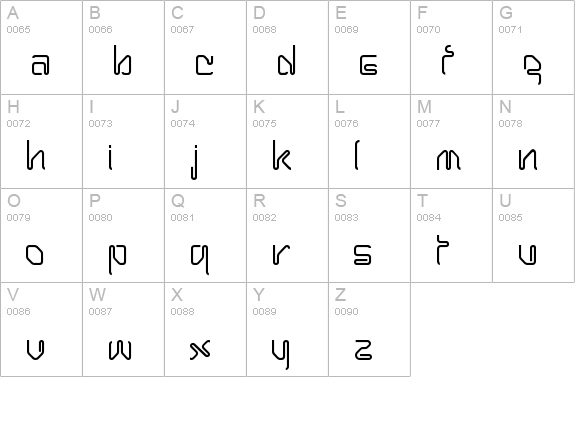
BobbyPin Regular Font Details
BobbyPin Regular is the standard, neutral variant in the BobbyPin typeface family \xE2\x80\x94 well suited to general body text, paragraphs, and standard typographic work.
BobbyPin Regular font is a charming and versatile typeface that exudes a sense of playfulness and creativity. With its quirky yet elegant design, BobbyPin Regular is perfect for adding a touch of personality to your projects. Whether you're designing a poster, logo, or social media graphics, this font will surely make your text stand out. Best of all, BobbyPin Regular font is completely free to download at FontsMarket.com. So go ahead and give your designs that extra flair with this delightful typeface.